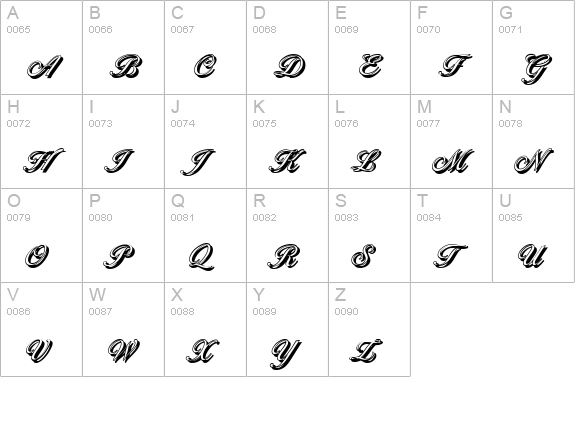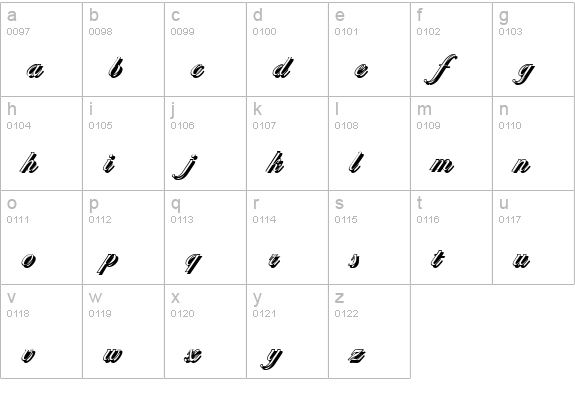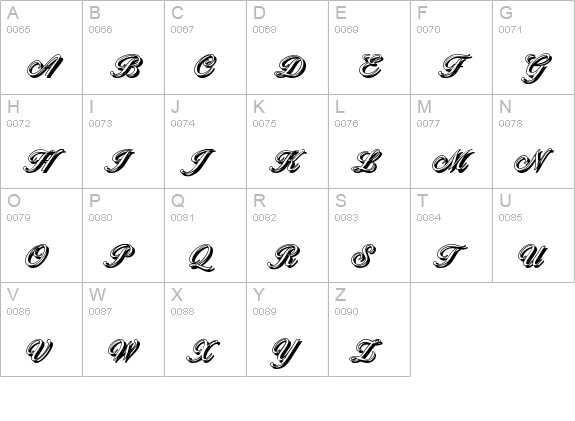
BallantinesShadow-Light-Regular is a refined, elegant variant in the BallantinesShadow typeface family \xE2\x80\x94 well suited to elegant body text, refined sub-headings, and luxury branding.
BallantinesShadow-Light-Regular is a stunning and versatile font that exudes elegance and sophistication. Its unique design features a delicate shadow effect that adds depth and dimension to any text it is applied to. Perfect for adding a touch of style to your projects, this font is ideal for branding, logos, invitations, and more. What makes BallantinesShadow-Light-Regular even better is that it is available for free download at FontsMarket.com. This means that you can easily access this beautiful font and use it in your designs without any cost. Don't miss out on the opportunity to enhance your creations with the beauty of BallantinesShadow-Light-Regular. Download it today and let your creativity shine!